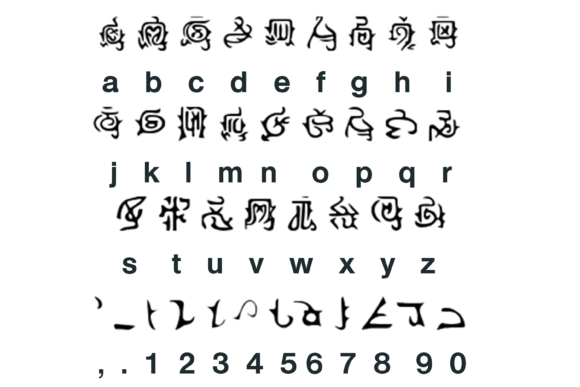
Fantasy Font: Elevate Your Dungeons and Dragons Campaigns and Fantasy Projects
Are you a Dungeon Master, novelist, or crafting enthusiast looking for the perfect font to add a touch of magic to your projects? Look no further than the Fantasy Font! This enchanting font is designed to transport your audience to a world of wonder and adventure, making it perfect for your next Dungeons and Dragons campaign, fantasy LARP adventure, novel, or any other creative project.
What is Fantasy Font?
Fantasy Font is a specially crafted typeface designed to evoke the mystique and allure of fantasy worlds. With its unique blend of classic and modern elements, this font is sure to captivate your audience and add a touch of whimsy to your projects. The font includes the standard English alphabet, numbers, commas, and periods, making it easy to use for a wide range of applications.
Features of Fantasy Font
- Unique and Whimsical Design: Fantasy Font boasts a distinctive design that is sure to set your project apart from the rest.
- Standard English Alphabet: The font includes the complete standard English alphabet, making it easy to use for writing and design.
- Numbers, Commas, and Periods: In addition to the alphabet, the font also includes numbers, commas, and periods, providing everything you need to create professional-looking text.
- Versatile: Fantasy Font can be used for a wide range of projects, from Dungeons and Dragons campaigns to novels, crafting projects, and more.
Uses for Fantasy Font
Fantasy Font is incredibly versatile and can be used for a variety of projects, including:
- Dungeons and Dragons Campaigns: Add a touch of magic to your D&D campaigns with Fantasy Font. Use it to create character sheets, maps, and other materials that will transport your players to a world of wonder.
- Fantasy Novels: Give your novel a professional and polished look with Fantasy Font. Use it for titles, headings, and body text to create a cohesive and engaging reading experience.
- Fantasy LARP Adventures: Create immersive and engaging materials for your LARP adventures with Fantasy Font. Use it to create character sheets, maps, and other materials that will enhance the player experience.
- Crafting Projects: Add a touch of whimsy to your crafting projects with Fantasy Font. Use it to create signs, labels, and other materials that will add a personal touch to your crafts.
Tips for Using Fantasy Font
Here are a few tips for getting the most out of Fantasy Font:
- Experiment with Different Sizes: Fantasy Font looks great in a variety of sizes, from small body text to large headings. Experiment with different sizes to find the perfect look for your project.
- Combine with Other Fonts: Fantasy Font pairs well with a variety of other fonts. Try combining it with a serif font for body text or a bold font for headings.
- Use for Titles and Headings: Fantasy Font is perfect for titles and headings. Use it to create eye-catching and engaging titles that will draw your audience in.
Fantasy Font is a versatile and enchanting typeface that is perfect for anyone looking to add a touch of magic to their projects. With its unique design, standard English alphabet, and versatility, Fantasy Font is sure to become a go-to font for designers, writers, and crafters. Whether you’re working on a Dungeons and Dragons campaign, a fantasy novel, or a crafting project, Fantasy Font is the perfect choice.